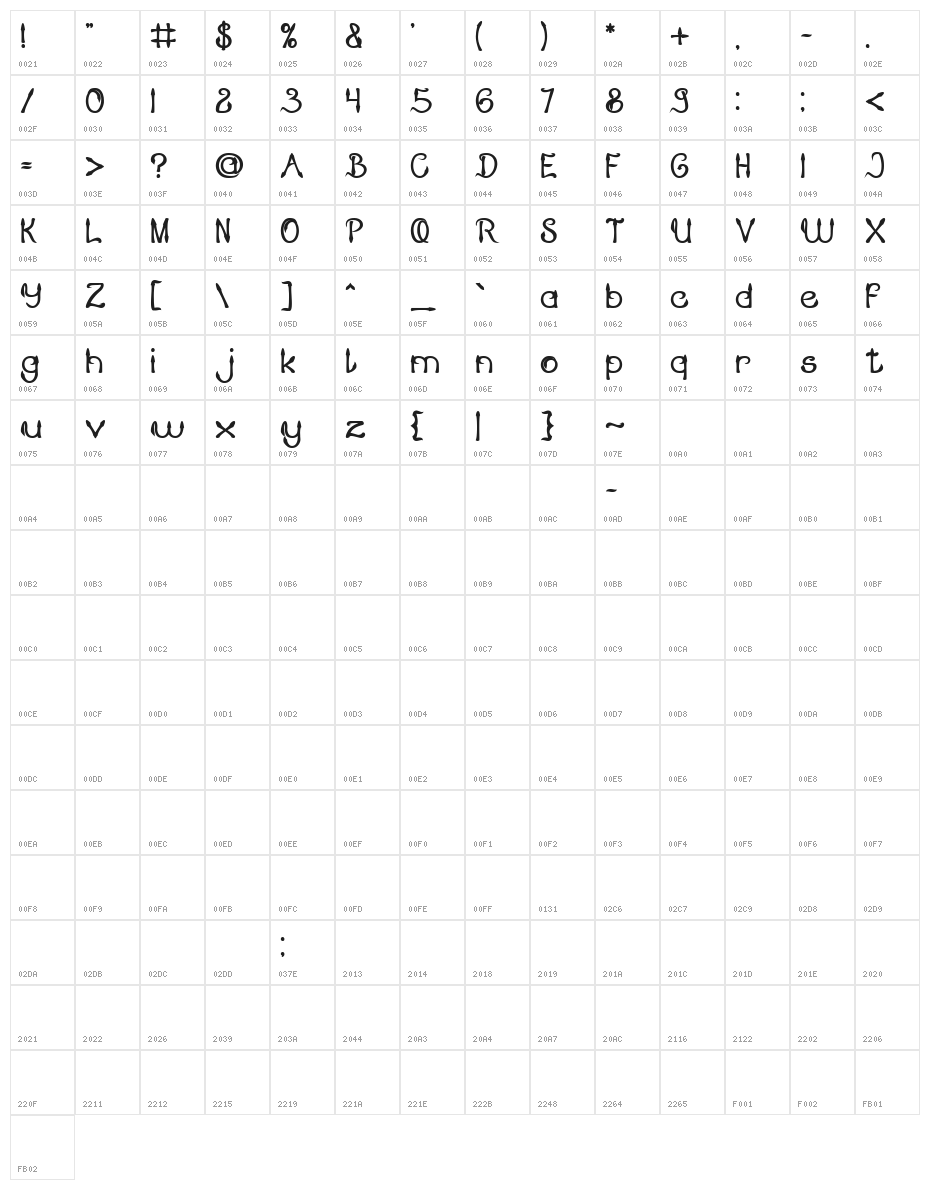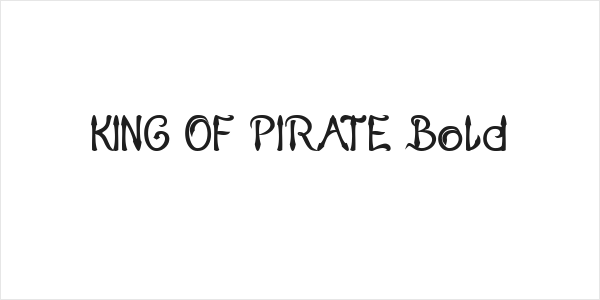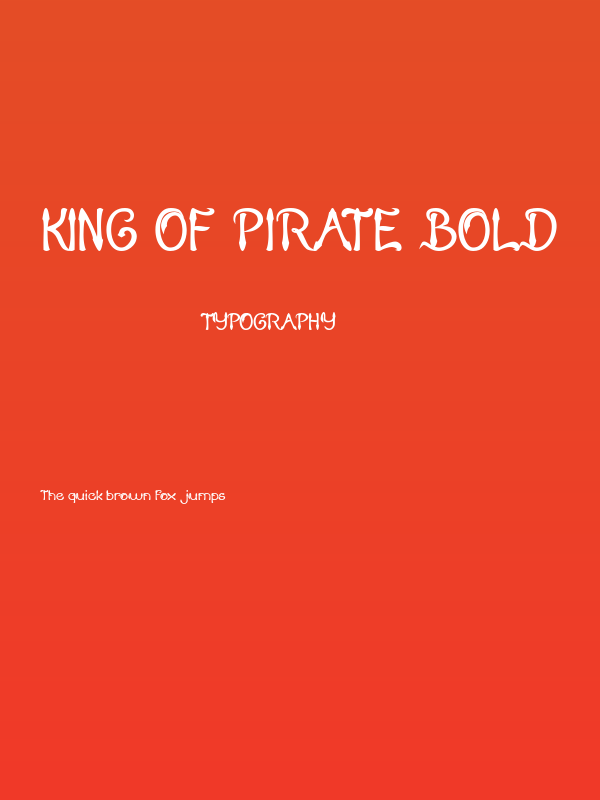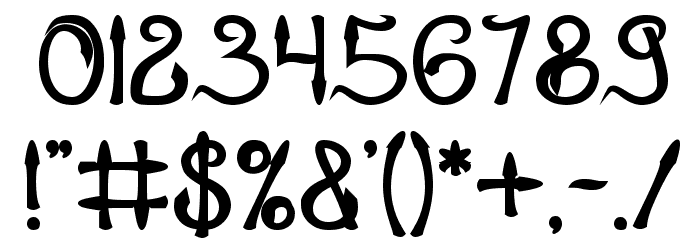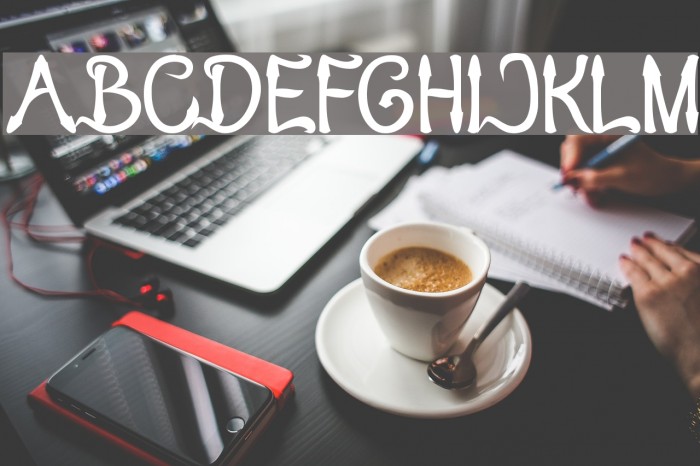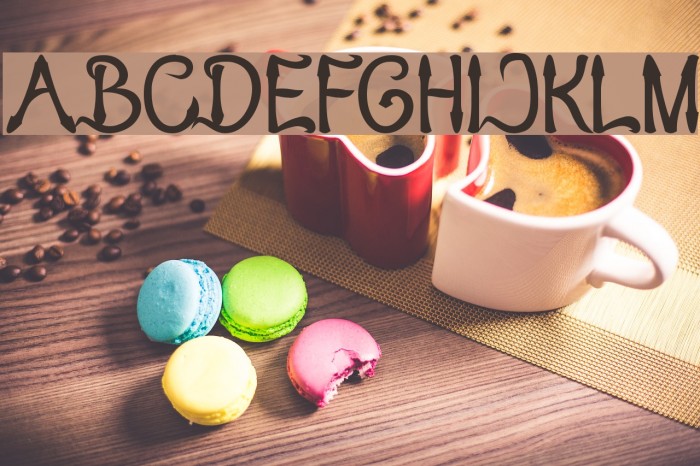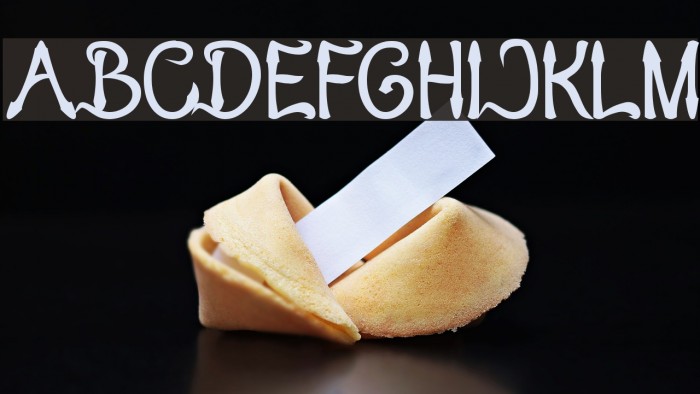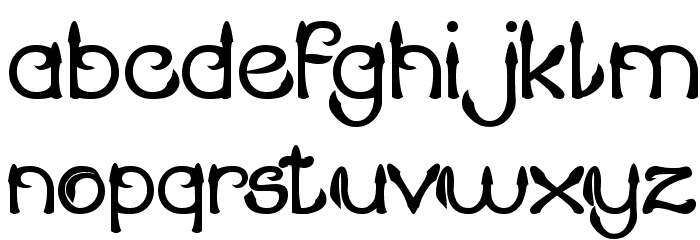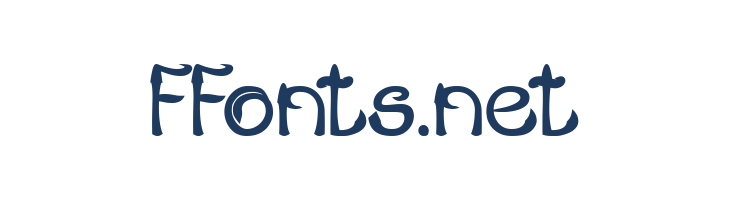
KING OF PIRATE Bold Font
This font exudes a playful and adventurous spirit, characterized by its bold and whimsical letterforms. The strokes are thick and rounded, giving it a friendly and approachable appearance. The uppercase letters are particularly distinctive, with exaggerated curves and loops that add a sense of motion and energy. The lowercase letters maintain a consistent style, complementing the uppercase with their own unique flair. Numbers and special characters are designed with the same boldness, ensuring a cohesive look across all text. This font is ideal for projects that require a fun and engaging aesthetic.
| Overall Style | Playful, Adventurous |
| Proposed Projects | Ideal for children's books, playful branding, party invitations, and adventure-themed designs. |